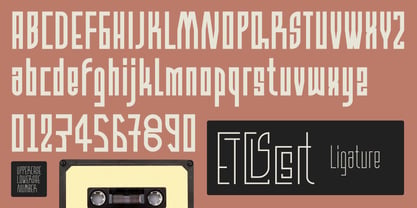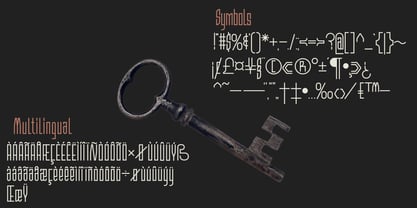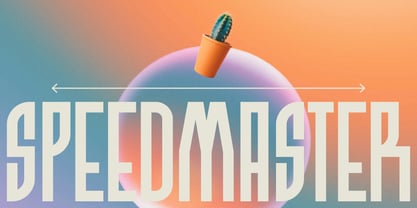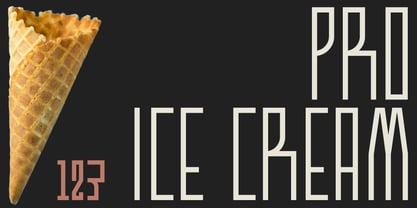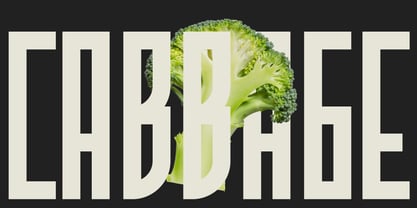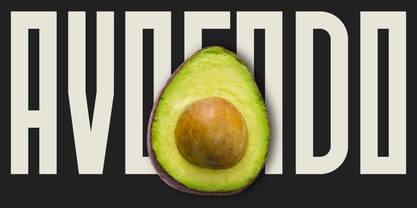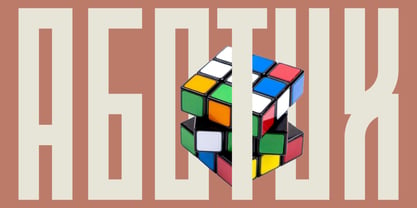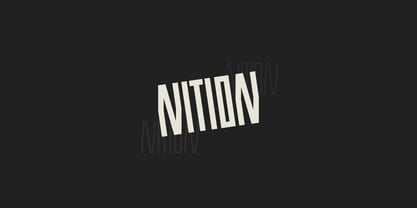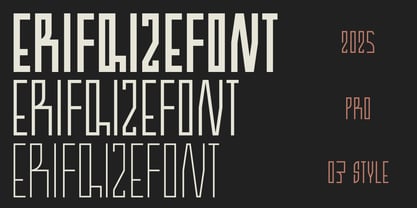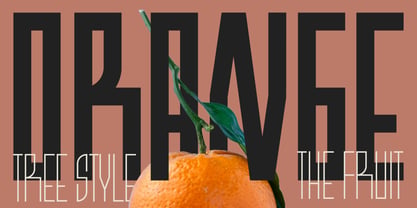
Nition
par Erifqizefont
La famille de polices Nition a été conçue par Eka Rifqi Setiawan et publiée par Erifqizefont. Nition contient 3 styles et options de package familial. En savoir plus sur cette famille
Nition is a modern condensed typeface designed for strong visual impact and high readability. Featuring tall proportions, clean geometry, and sharp structure, Nition delivers a confident and professional look across a wide range of design needs. This typeface comes with three styles: Thin, Regular, and Bold, allowing flexible hierarchy and contrast in your layouts. Its condensed form makes it perfect for headlines, posters, branding, editorial design, logos, packaging, and digital interfaces where space efficiency and clarity matter. With multilingual support, Nition is suitable for global projects and professional use. The minimalist yet bold character makes it an excellent choice for modern, corporate, tech, fashion, and experimental designs that require a sleek and contemporary tone. Designed by Erifqizefont.
Concepteurs: Eka Rifqi Setiawan
Fonderie: Erifqizefont
Introducing Erifqizefont, a Foundry led by Eka Rifqi Setiawan. Originating from Eka's experience as an Icon Designer, Erifqizefont specializes in bold, symmetrical Display Fonts with futuristic elements, occasionally exploring retro and whimsical styles. Based in Indonesia, Erifqizefont integrates the nation's cultural heritage into its designs. As a sole proprietor, Eka focuses on crafting superior, unique fonts, setting Erifqizefont apart in the industry.